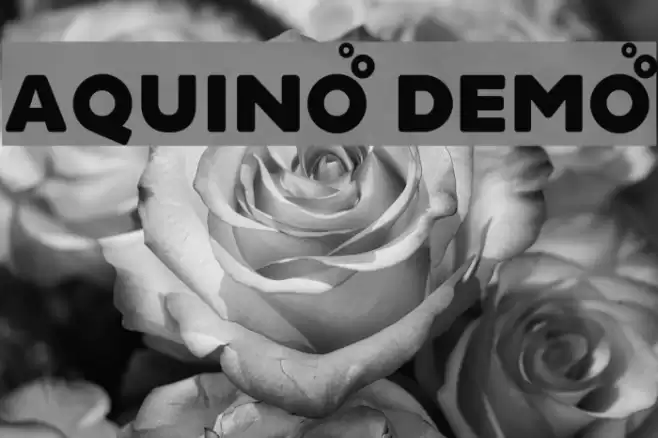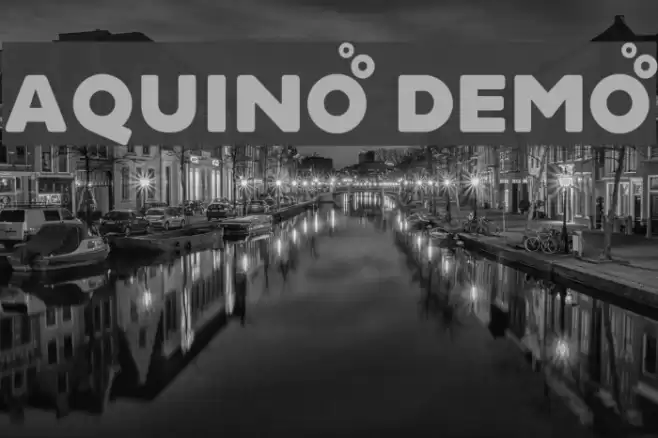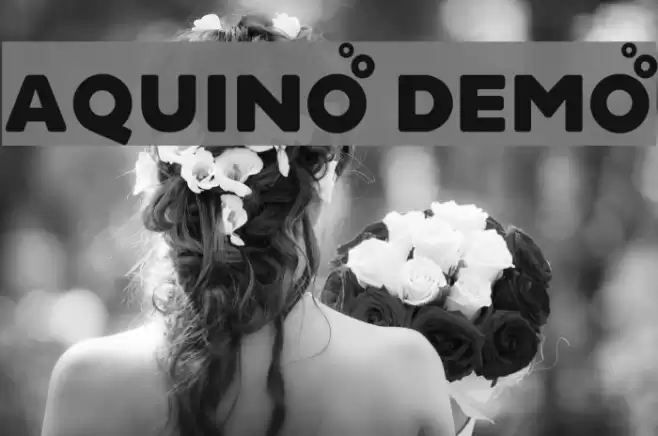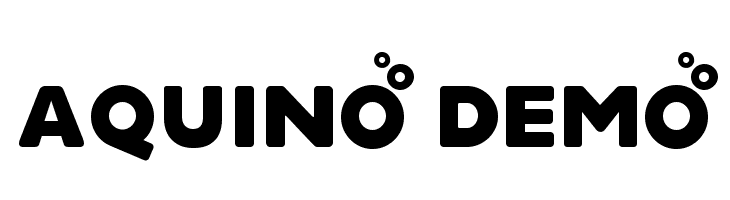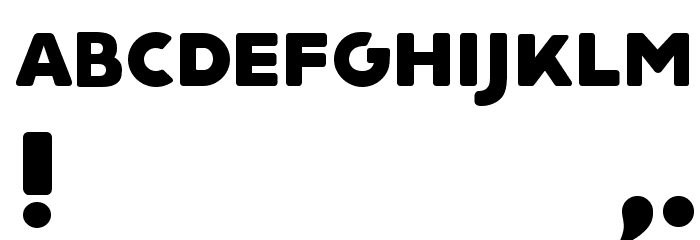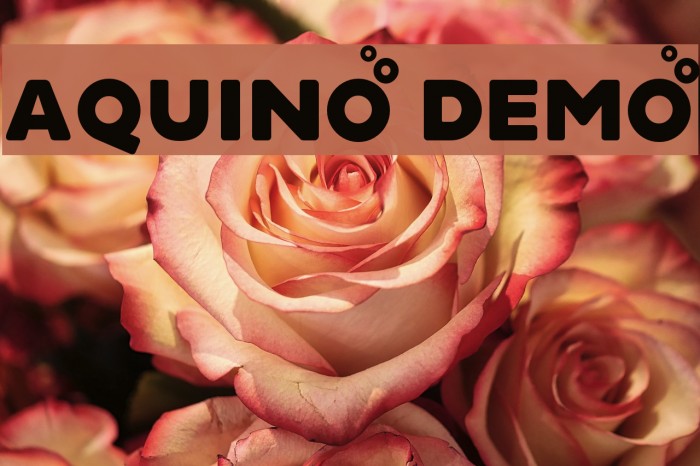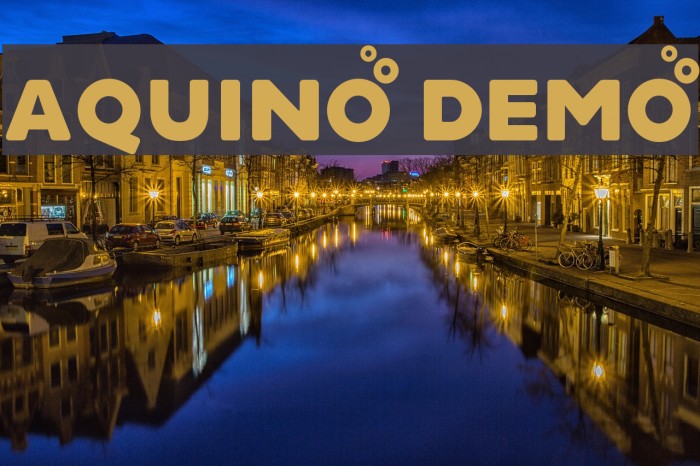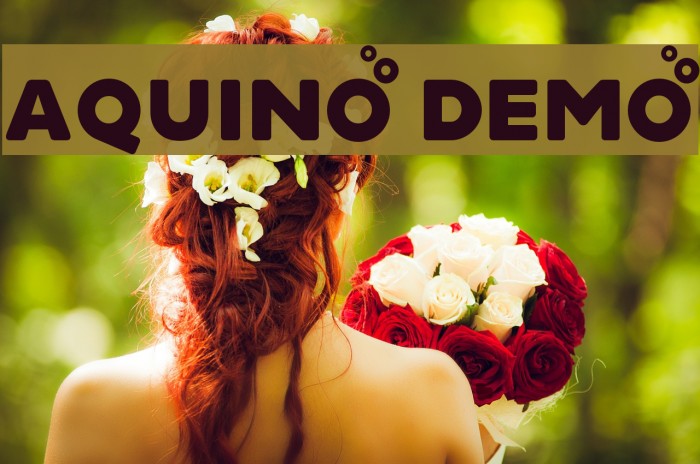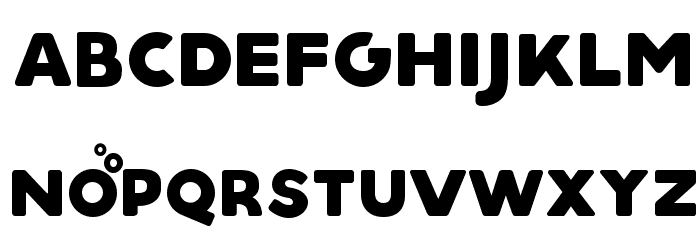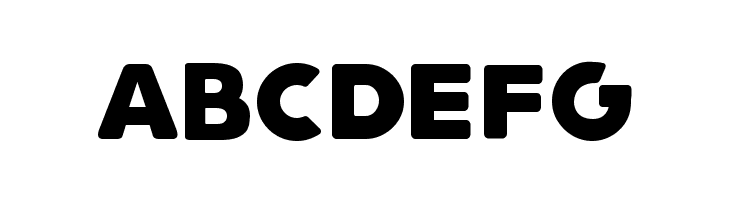
Aquino Demo Font
Aquino Demo Description
This font features bold, rounded characters with a modern and friendly appearance. The letters are uniformly thick, giving a strong and confident look. The rounded edges soften the overall feel, making it approachable and versatile. The uppercase and lowercase letters maintain a consistent style, ensuring readability and coherence. The font includes special characters like exclamation marks and punctuation, which are designed to match the overall aesthetic. Its simplicity and clarity make it suitable for various design applications.
A bold, rounded font with a modern and friendly style from Uncategorized fonts.
- Proposed Projects: Ideal for branding, advertising, headlines, and digital content where a modern and approachable look is desired.
- Use Case: Headlines, Logos, Branding